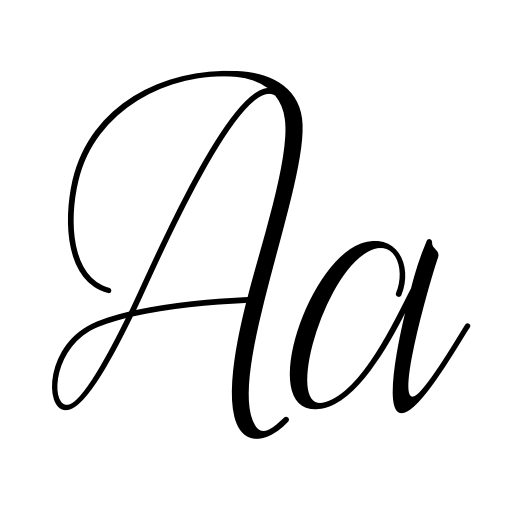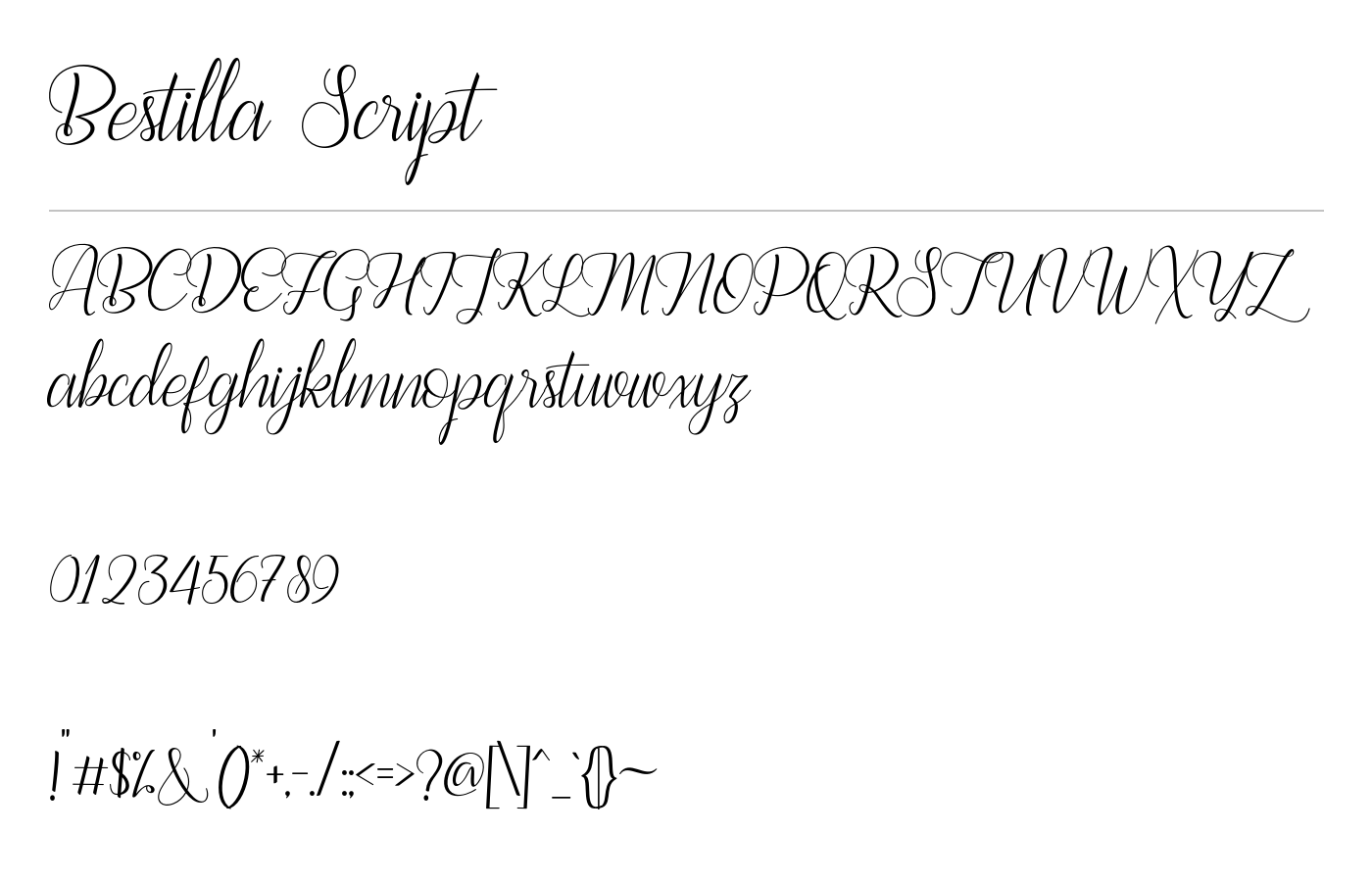
Bestilla Script is an elegant and delicate script font characterized by its fine, flowing strokes and graceful, slightly elongated letterforms. Its thin weight and high contrast give it a refined, sophisticated feel, making it perfect for luxury branding, wedding invitations, and upscale editorial use where a touch of elegance and personal charm is desired. The font's intricate curves and smooth connections add a romantic and artistic flair, ideal for creating a stylish and memorable impression.
Bestilla Script Font
About Bestilla Script Font